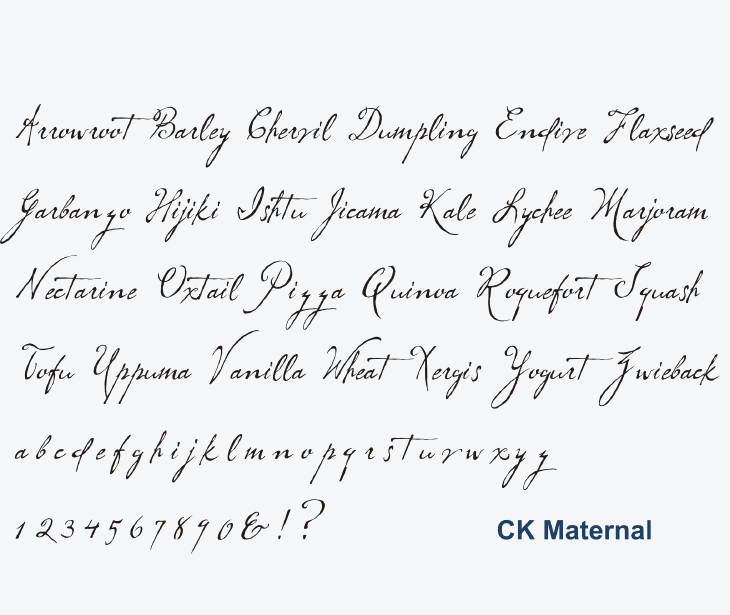
With thousands of fonts already in your creative cloud subscription, it’s hard to keep track when there are new fonts available — especially since we add them on a regular basis. Handwriting fonts are a fun way to add a casual, human feel to your designs.
This font is definitely easy on the eyes, has a bit of a modern touch yet still keeps that old school aesthetic. Create a pdf from the document. Corneria can be used for logos, titles and slogans. Go to acrobat help, search for 'embed', and click on the section embedding and unembedding fonts using the touchup text too.
Go to acrobat help, search for 'embed', and click on the section embedding and unembedding fonts using the touchup text too. It is the best script font from adobe, and it is a great font to use for any branding. We’ve included a couple fonts for pairing here too, just to get you started. All three adobe handwriting fonts are now part of the adobe fonts collection (of thousands!) that comes with.
Corneria script is a traditional style of calligraphy. Go to acrobat help, search for 'embed', and click on the section embedding and unembedding fonts using the touchup text too. Note that some fonts do not allow themselves to be embedded. Segoe script is a very popular choice when it comes to handwriting fonts. Architect font.
This font is definitely easy on the eyes, has a bit of a modern touch yet still keeps that old school aesthetic. Create a pdf from the document. Handwriting fonts are a fun way to add a casual, human feel to your designs. Control panel > fonts, mac: Pin by Joy Chromy Bauder on Project Inspirations Architectural.
Go to acrobat help, search for 'embed', and click on the section embedding and unembedding fonts using the touchup text too. Tlwg typewriter is a wide, bold font that looks very much like a typewriter font that’s great to use on headings and bigger text sizes. Restart illustrator if it was open during that process. Each style of the family has its own rhythm and character. MyFonts De Vinne style typefaces.
It looks sleek and elegant. Corneria script is a traditional style of calligraphy. Create a pdf from the document. It’s great both formally and informally, depending on the context that you need it for. Leander Script® Pro Font Fontspring.
Most people enjoy it because it doesn’t come with any unnecessary flicks. Have fun and find your own style among these options! Adobe handwriting is a trio of fonts that are based on the handwriting of some of our own designers. Segoe script is a very popular choice when it comes to handwriting fonts. pdf format Custom fonts show as boxes when opening Mathematicamade.
Each style of the family has its own rhythm and character. Have fun and find your own style among these options! Our community of experts have been thoroughly. Corneria script is a traditional style of calligraphy. pdf format Custom fonts show as boxes when opening Mathematicamade.
These have either been produced by an overprotective maker or the embedding flags were set wrong. What is the best cursive font in adobe? These trending handwritten fonts can make text look more artistic and even unique. Each style of the family has its own rhythm and character. Cursive fonts these are expensive but so pretty Fonts Pinterest.
Each style of the family has its own rhythm and character. Adobe handwriting is a trio of fonts that are based on the handwriting of some of our own designers. On both mac and pc there will be an install option. With thousands of fonts already in your creative cloud subscription, it’s hard to keep track when there are new fonts available — especially since we add them on a regular basis. MyFonts List of all monoline typefaces.
This font is definitely easy on the eyes, has a bit of a modern touch yet still keeps that old school aesthetic. Have fun and find your own style among these options! Go to acrobat help, search for 'embed', and click on the section embedding and unembedding fonts using the touchup text too. What is the best cursive font in adobe? Font list so you can see what various fonts look like.
Most people enjoy it because it doesn’t come with any unnecessary flicks. Open the pdf in acrobat, and choose file > properties > fonts. Each style of the family has its own rhythm and character. Curated by the adobe type team. font. Download a Free Preview or High Quality Adobe Illustrator Ai, EPS.
Rollerscript Is An Ideal Adobe Font For Product Packaging.